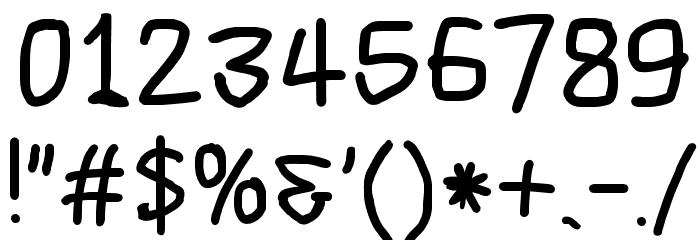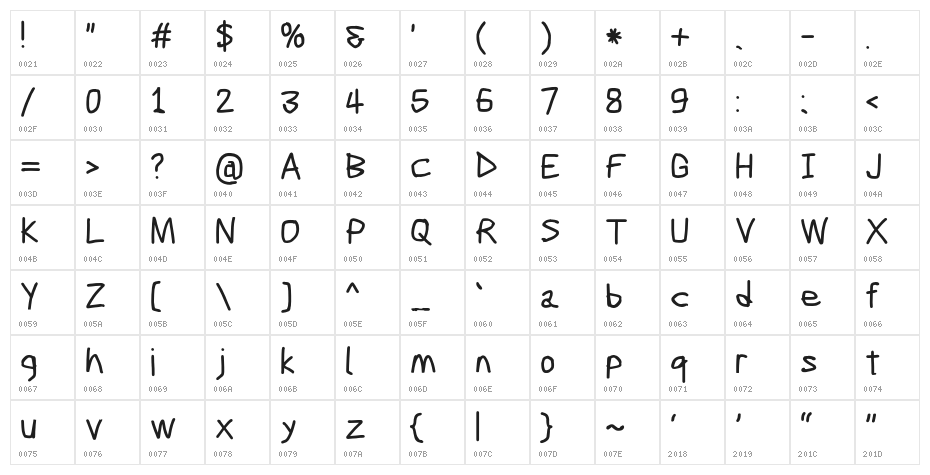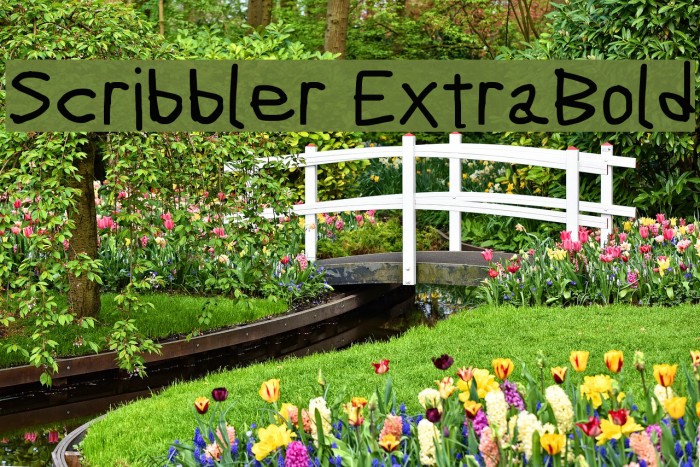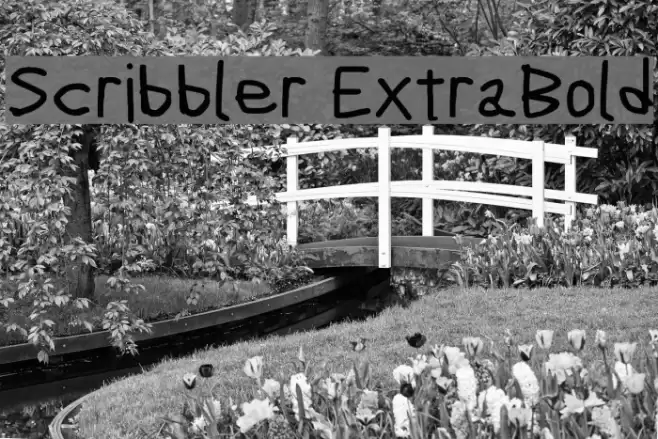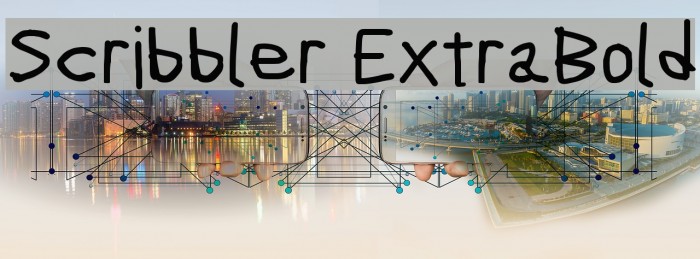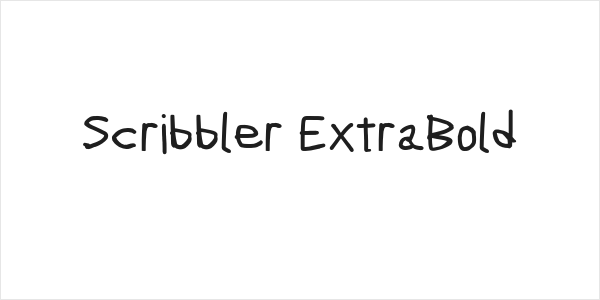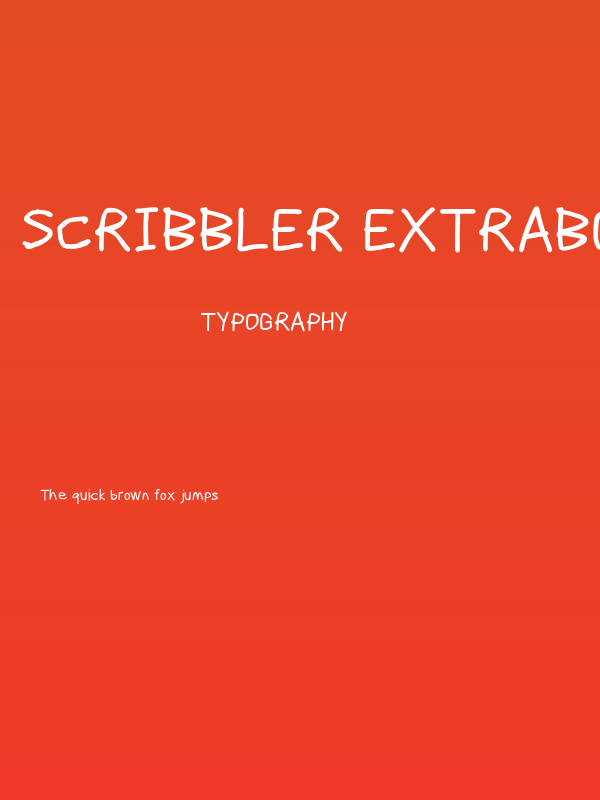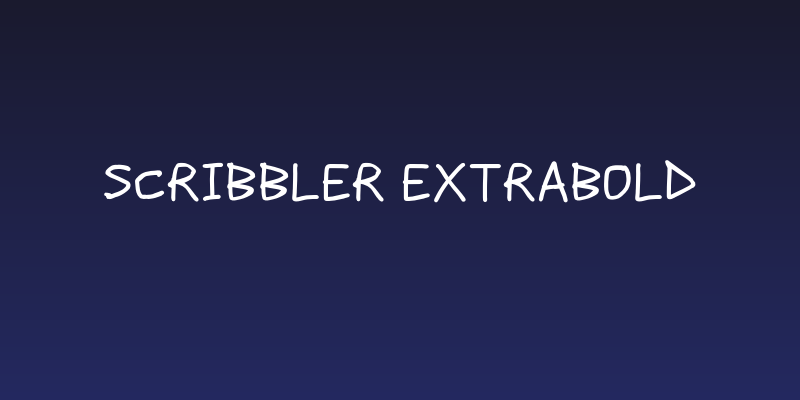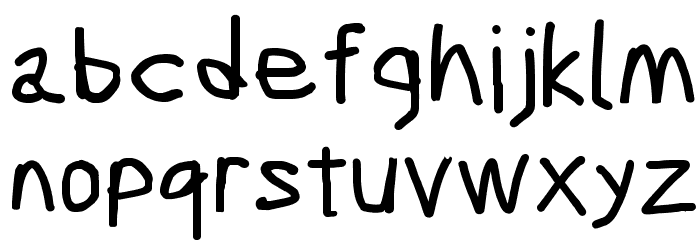
Scribbler ExtraBold Font
Scribbler ExtraBold Description
This font exudes a playful and informal style, reminiscent of handwritten notes with a bold and confident touch. The characters are slightly irregular, adding to the casual and approachable feel. Each letter is distinct, with rounded edges and a consistent thickness throughout, giving it a cohesive look. The numerals and special characters maintain the same playful aesthetic, making it versatile for various uses. Its boldness ensures readability while maintaining a friendly and inviting appearance.
| Use Case | Headlines, Informal text, Branding |
| Proposed Projects | Ideal for children's books, casual invitations, greeting cards, and playful branding projects. |